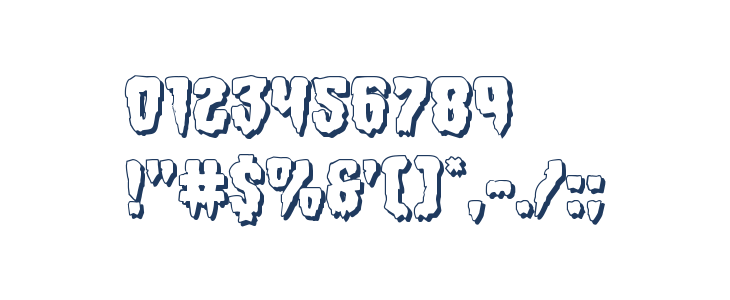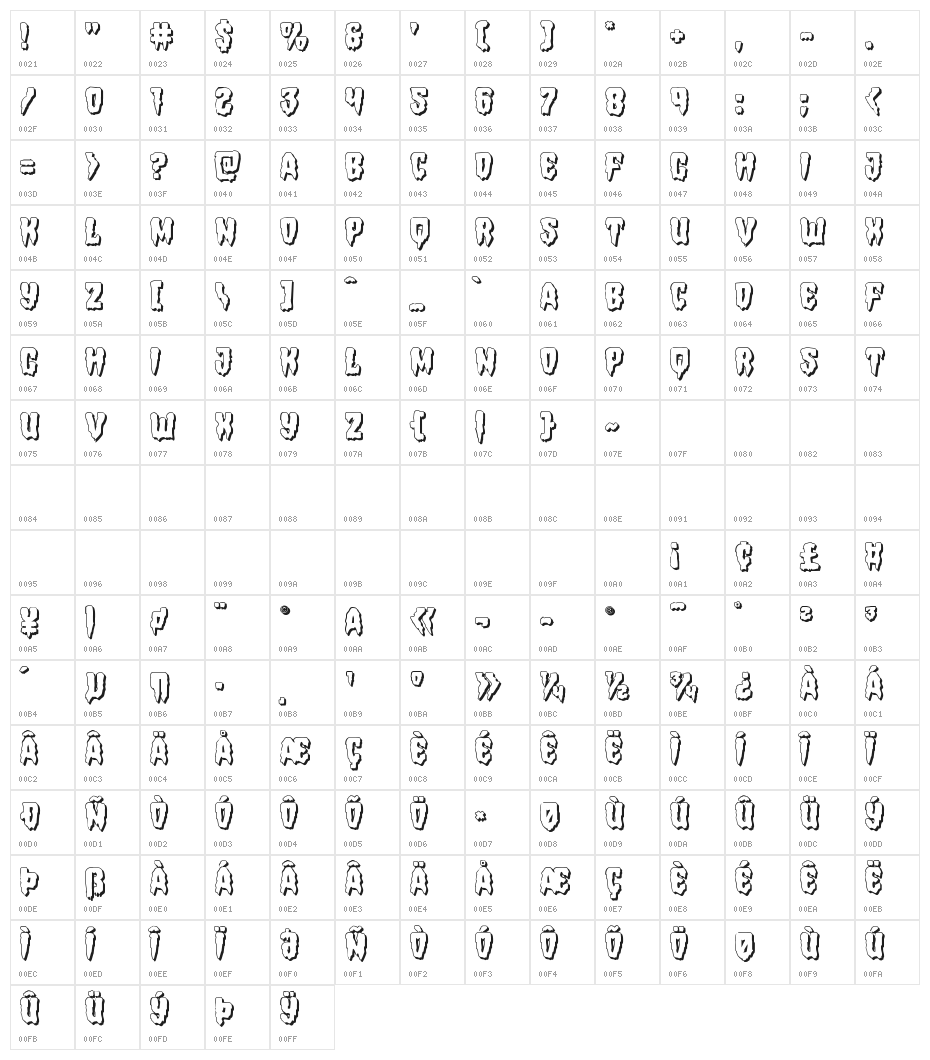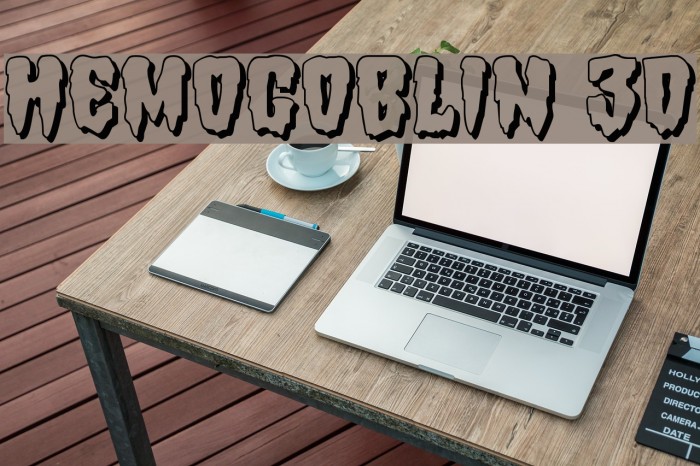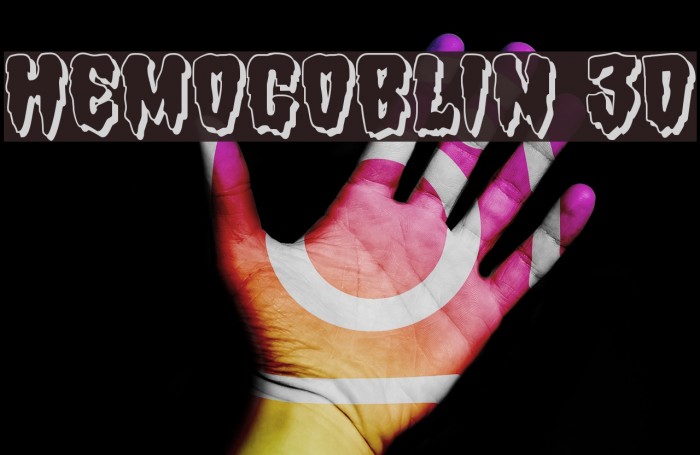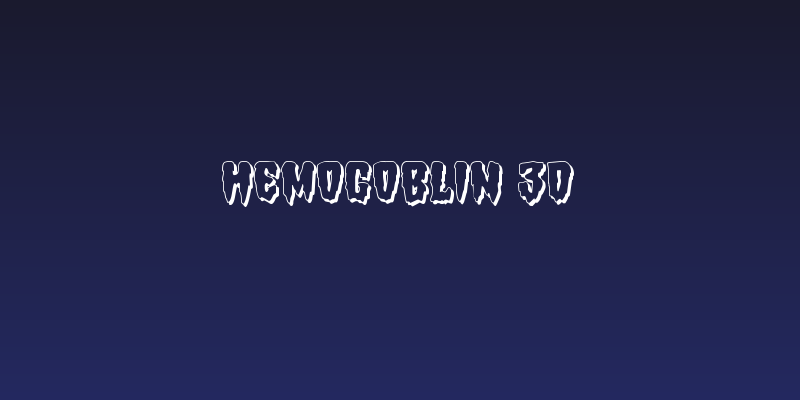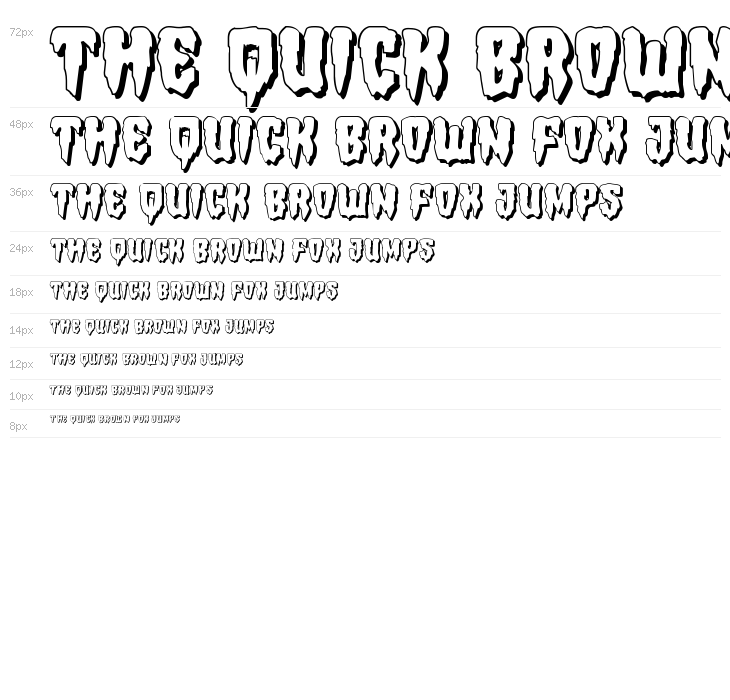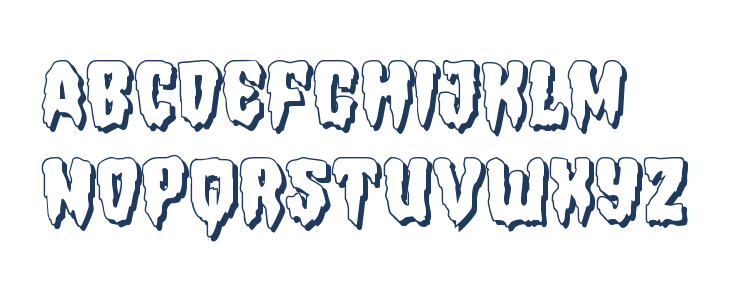
Hemogoblin 3D Font
Hemogoblin 3D Description
This font features a bold, three-dimensional style with a dripping effect that gives it a spooky, horror-themed appearance. The characters are thick and blocky, with a shadow that enhances the 3D look. Each letter and number appears to be melting or oozing, adding a unique and eye-catching element. The font is highly decorative and is designed to stand out, making it ideal for thematic projects. Its playful yet eerie design is perfect for Halloween or horror-related content, adding a dramatic flair to any text.
Proposed ProjectsIdeal for Halloween posters, horror movie titles, themed party invitations, and spooky event flyers.